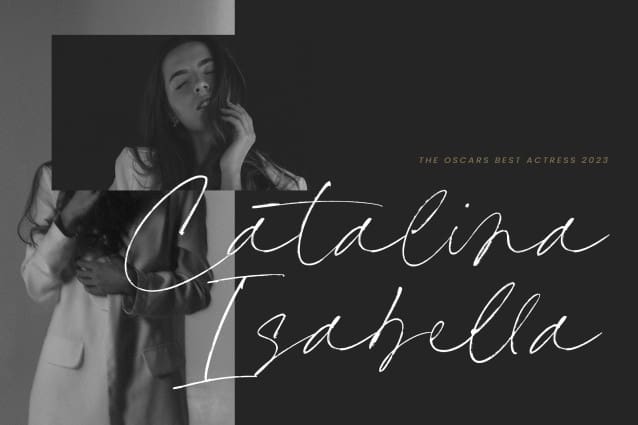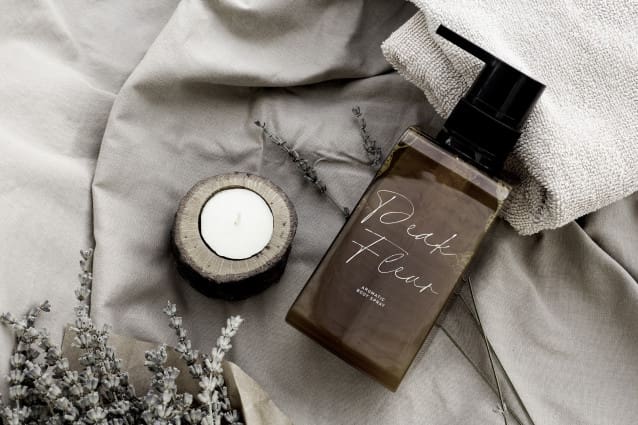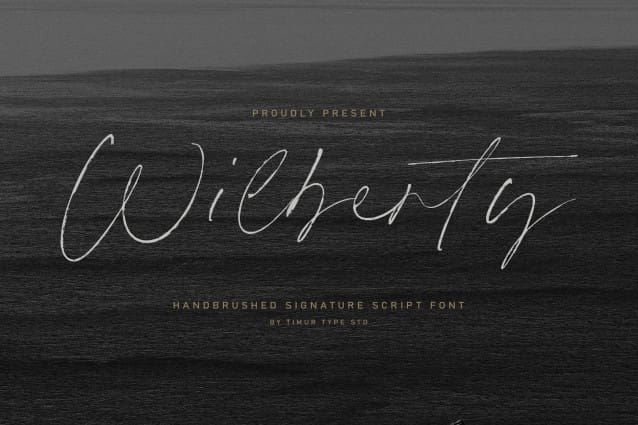
Wilberty Font
Wilberty Font is a Handbrushed Signature Script Font. This font embrace the artistry of handwritten elegance with our handbrushed signature script font, where every stroke tells a story of timeless sophistication and personal style. Redefine your brand with a touch of bespoke authenticity